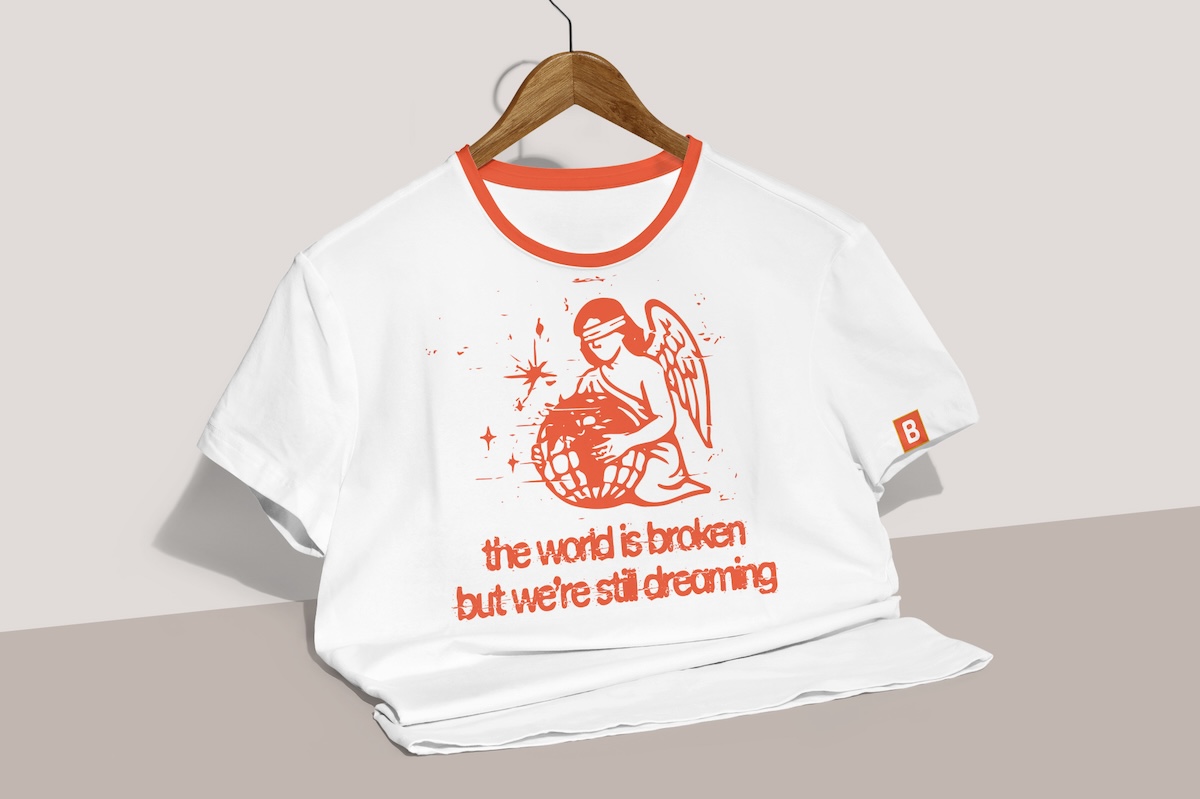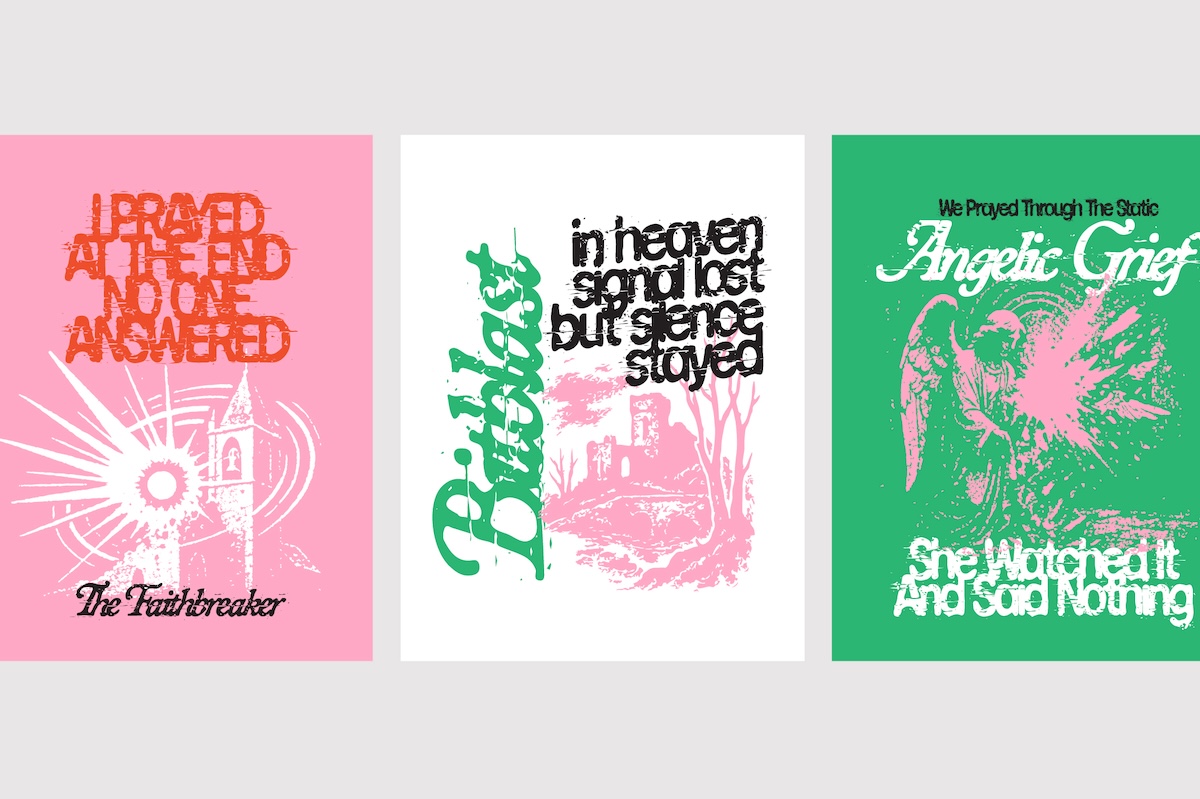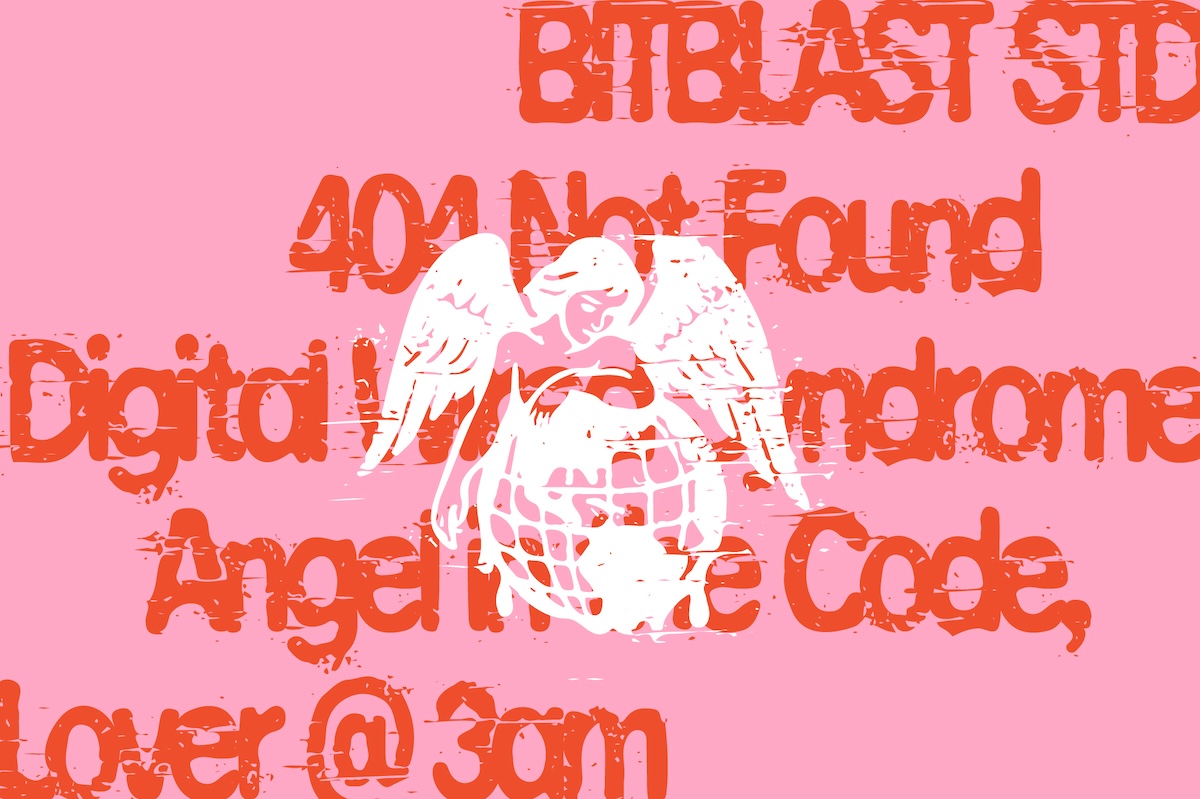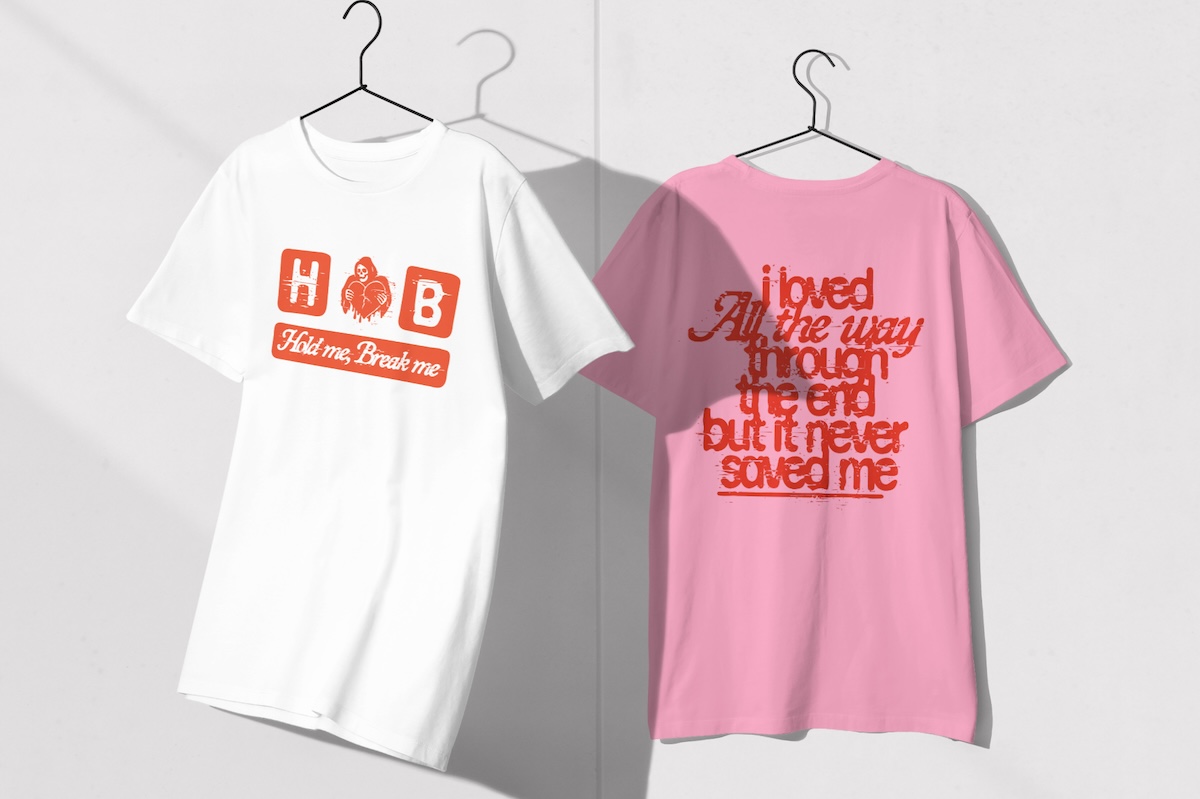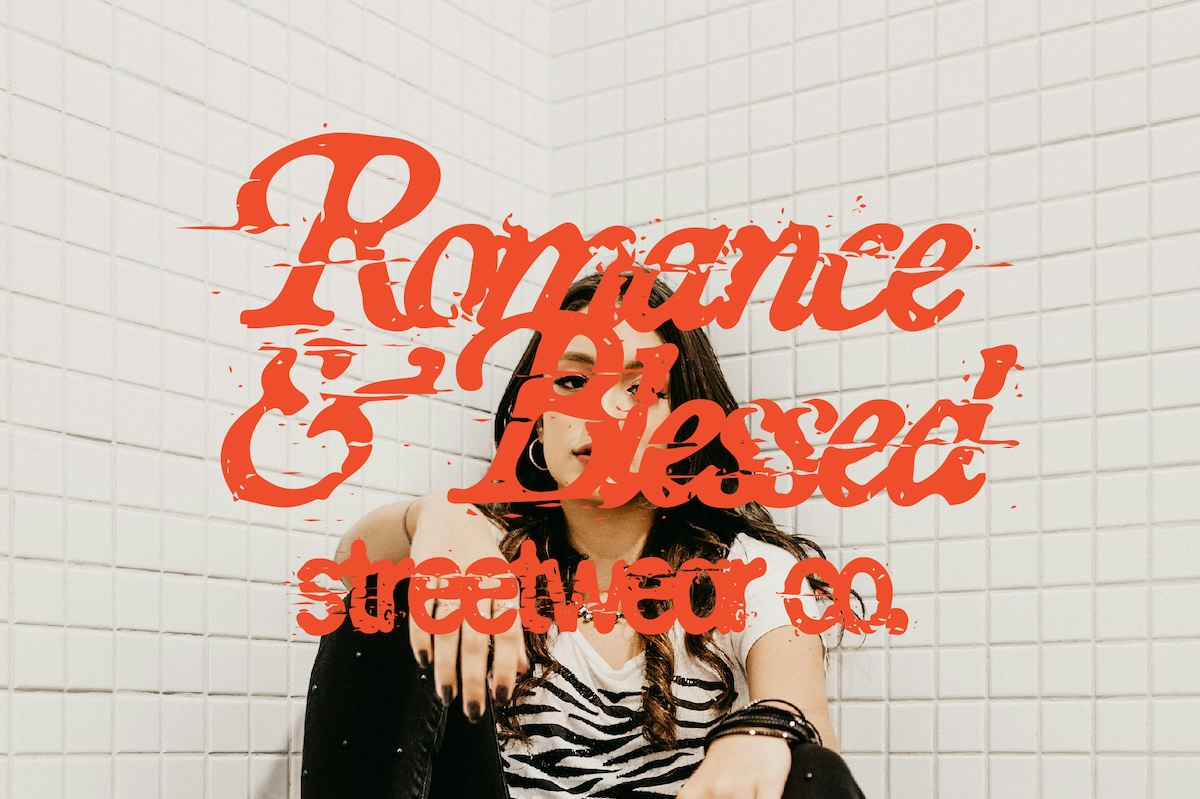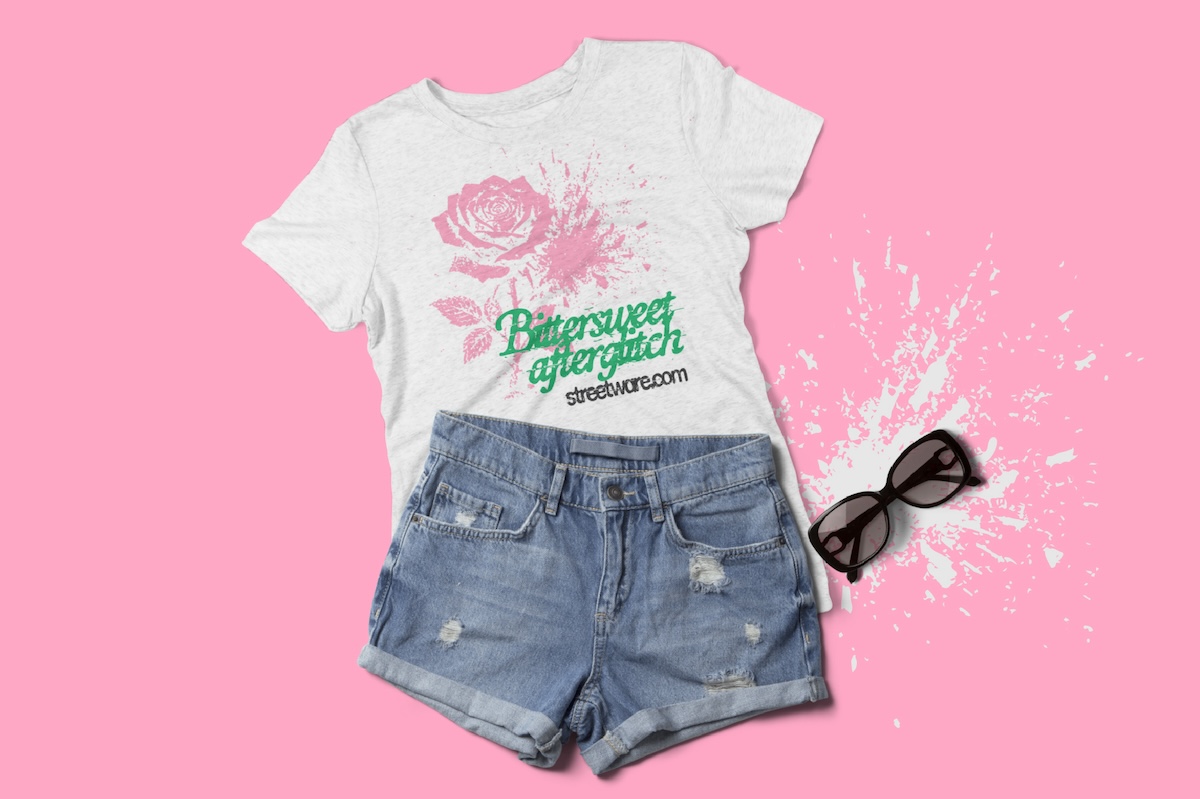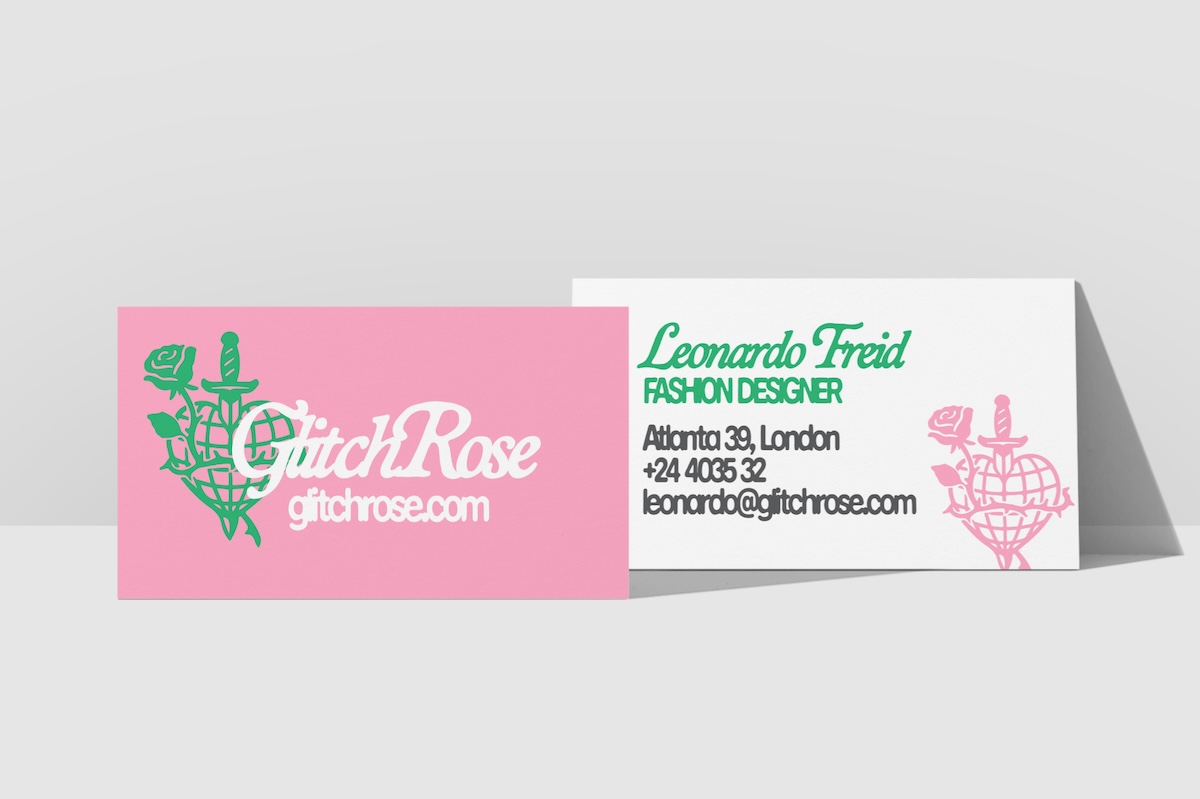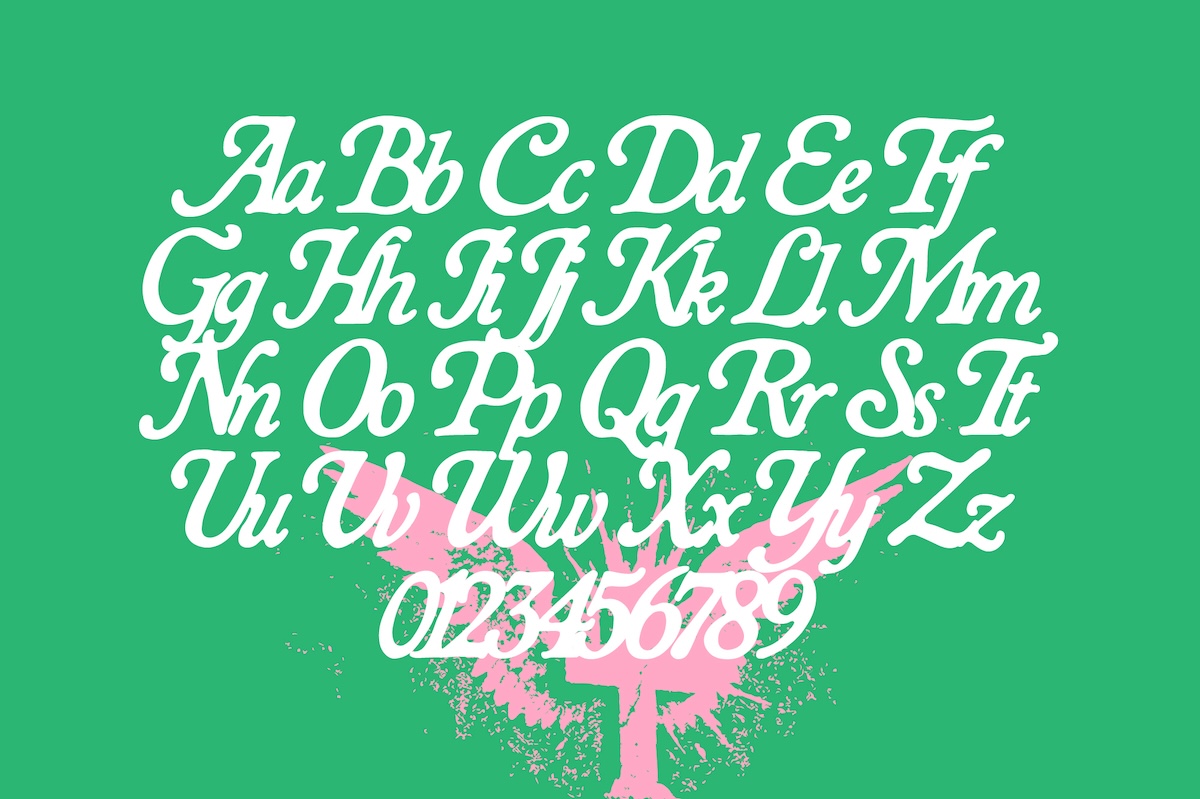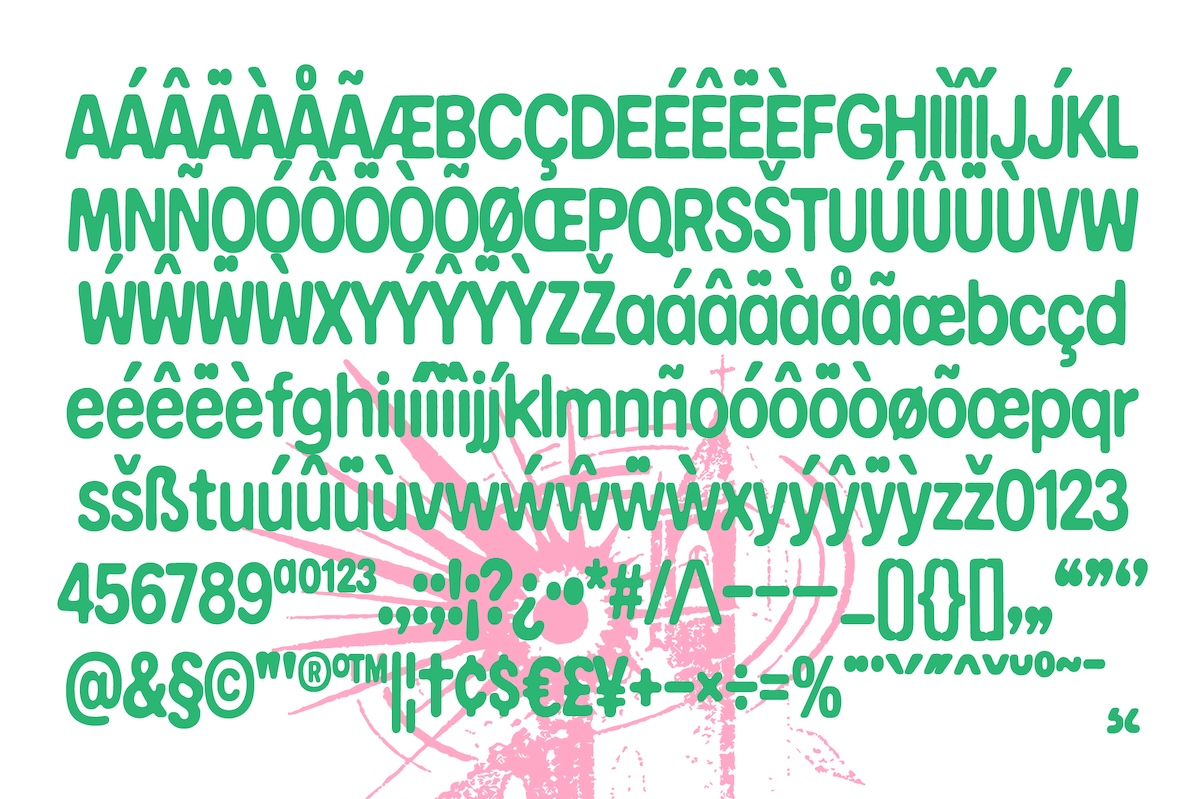
Bitblast Font
Bitblast is a bold serif and sans font duo with a raw, distressed style. Designed for dark streetwear, emotional Y2K aesthetics, and glitch-driven branding, this typeface brings high-impact energy to any visual. The serif cuts with sharp gothic elegance, while the condensed sans delivers a futuristic, rebellious edge—perfect for logos, apparel, posters, and bold identity visuals.
- 2 fonts (serif italic and condensed sans)
- 2 style typefaces (regular and textured)
- Uppercase, lowercase, numeral, symbol and punctuation